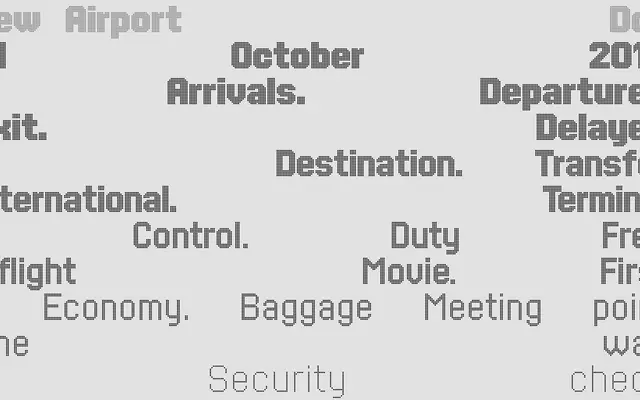
New Airport Dot
A2-Type · Margaret Calvert / Kinneir, Calvert, Tuhill Ltd. · 1970
New Airport Dot specimen from A2-Type
A revival of Margaret Calvert's circa-1970 dot-matrix lettering for British Airports Authority illuminated shop fascia signs, expanded from a single-weight lowercase to a full five-weight family.
Originally created by Kinneir, Calvert, Tuhill Ltd. for internally illuminated signage at Gatwick Airport, this revival restores and extends the original lettering with capitals, lining and non-lining numerals, and punctuation across five weights numbered 1 through 5. It sits apart from the better-known Calvert direction signage, being purpose-built for retail fascias rather than wayfinding. The result is a typeface with a specific institutional history that lends itself to display work, branding and anything drawing on mid-century British public design.
A revival of illuminated dot-matrix lettering designed for British Airports Authority shop fascia signs circa 1970, placing it firmly in the display/signage category with a distinctive dot-grid construction.